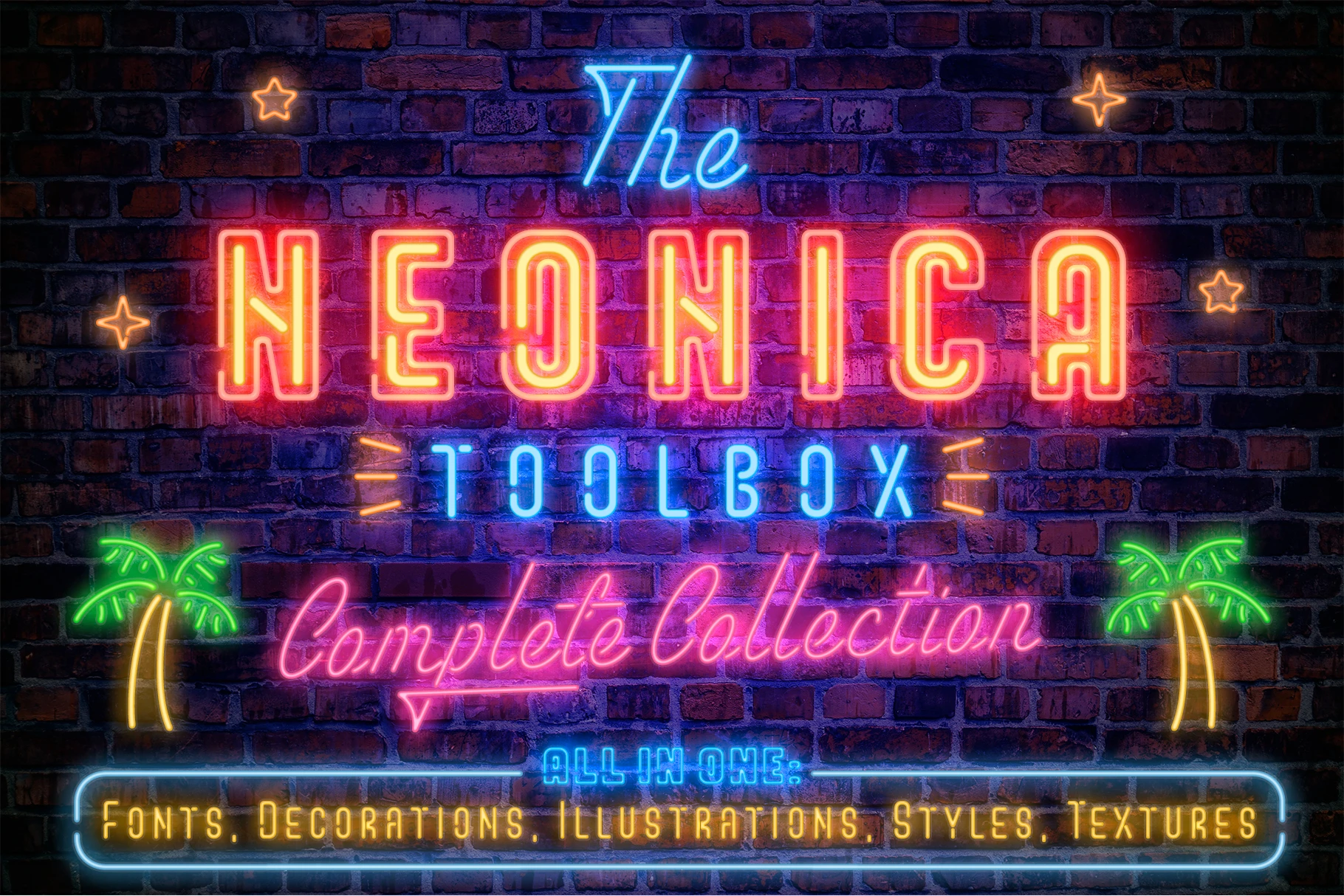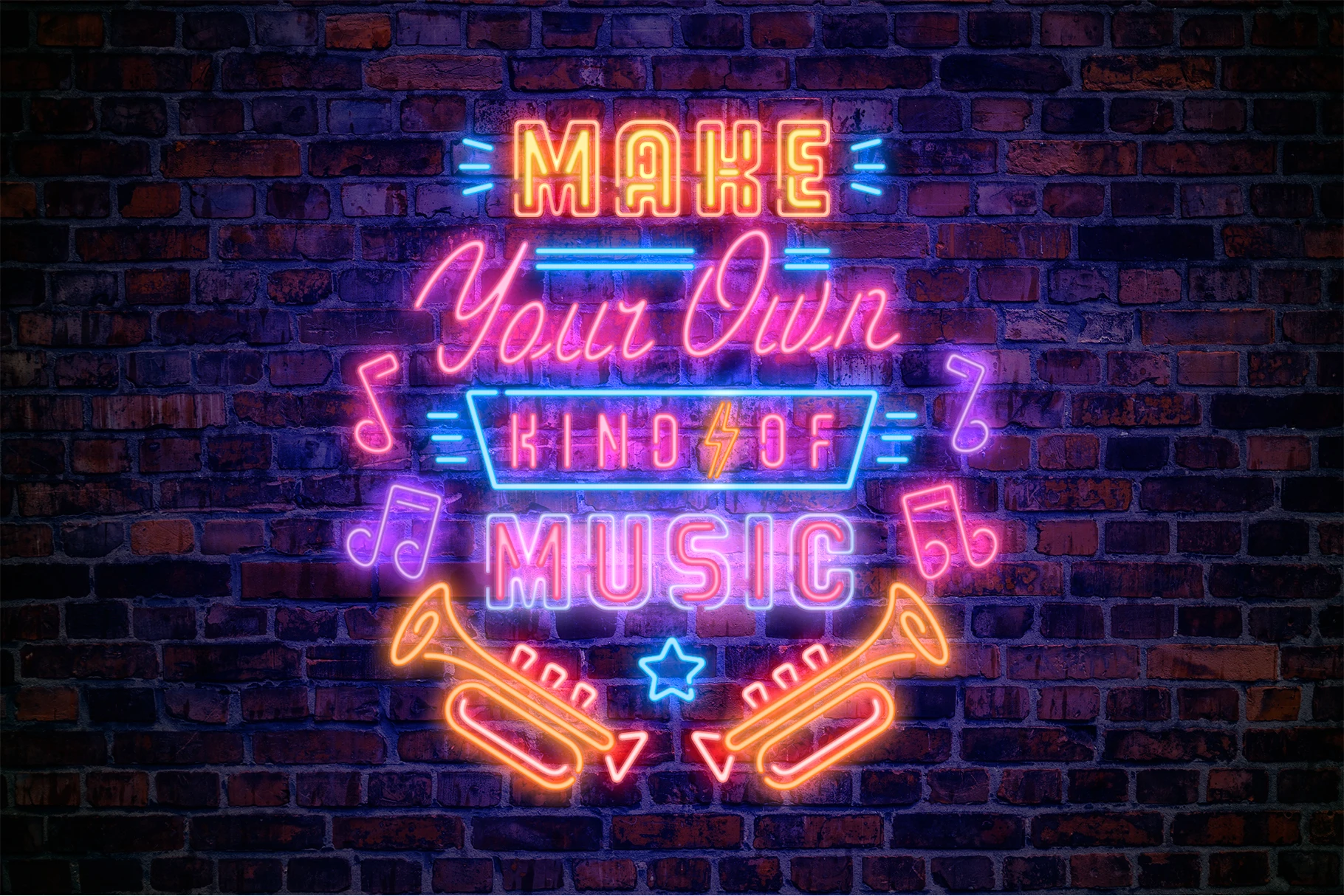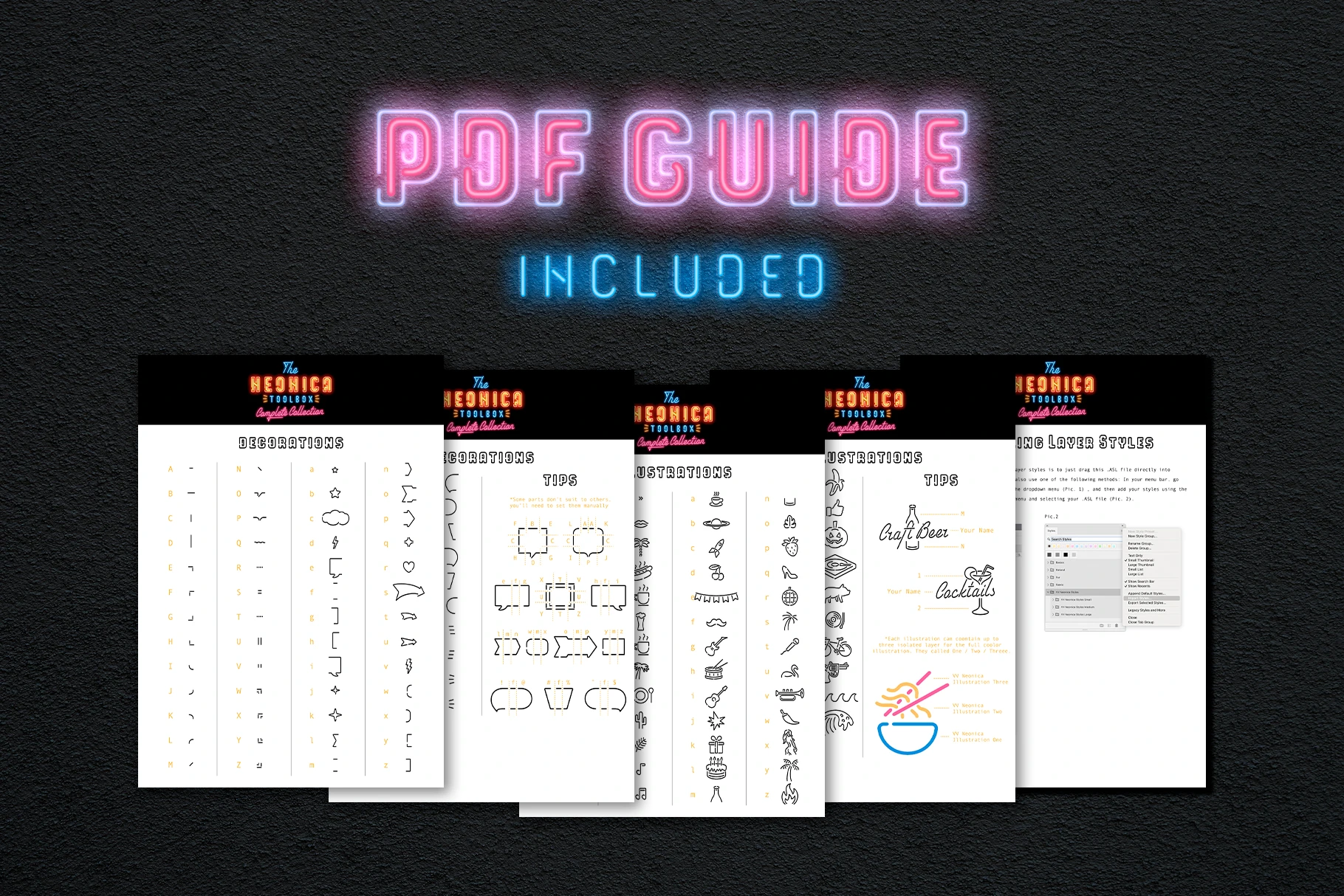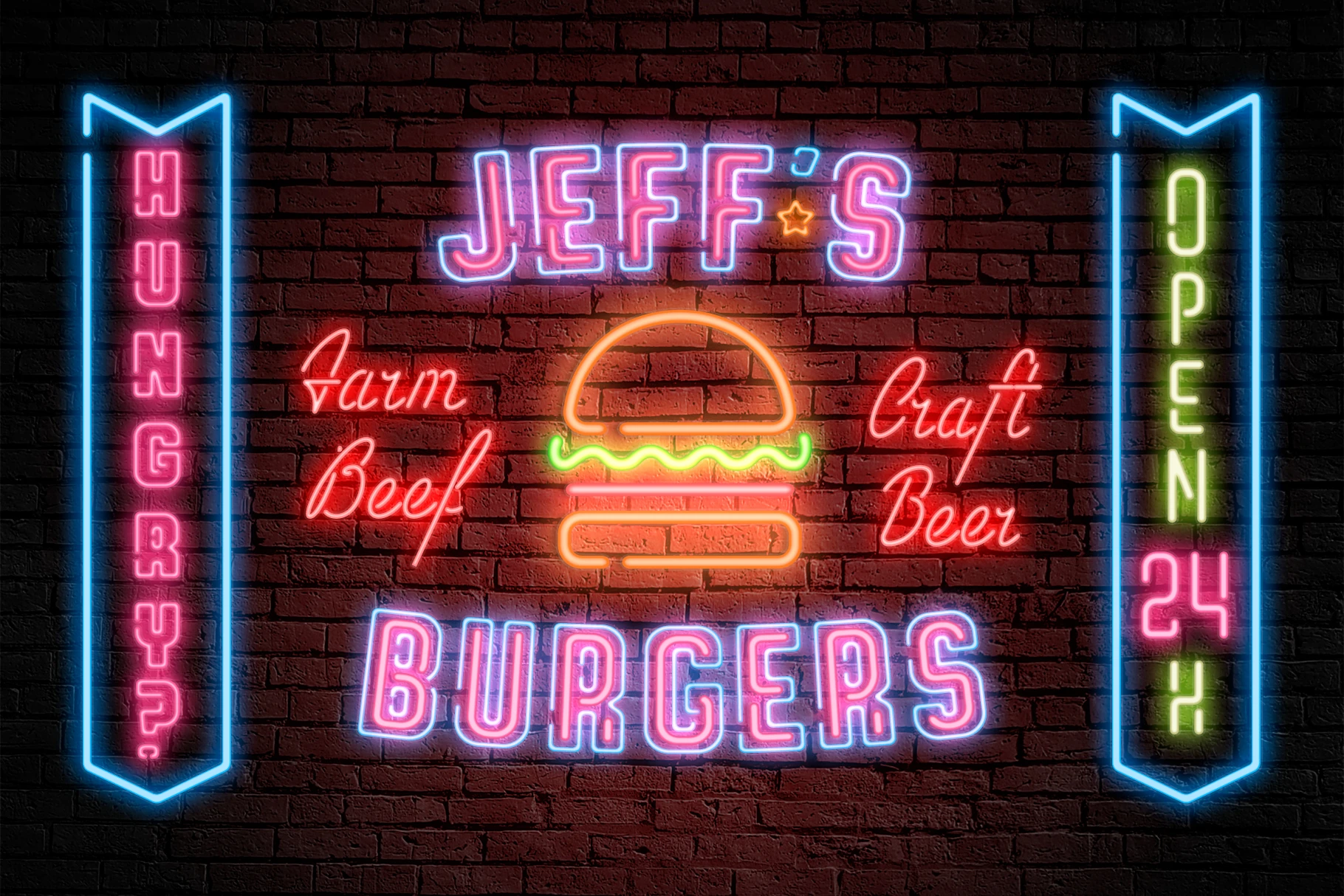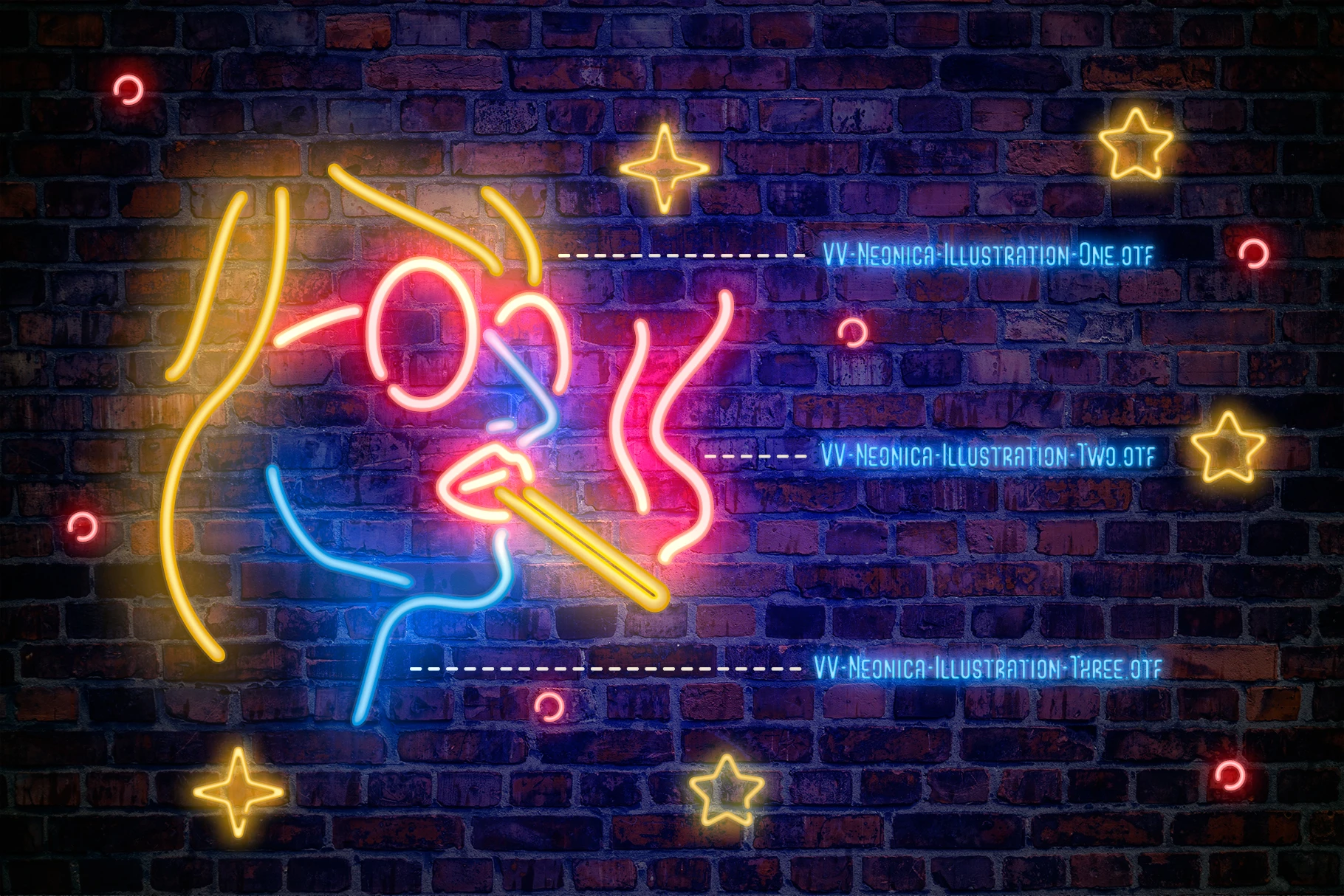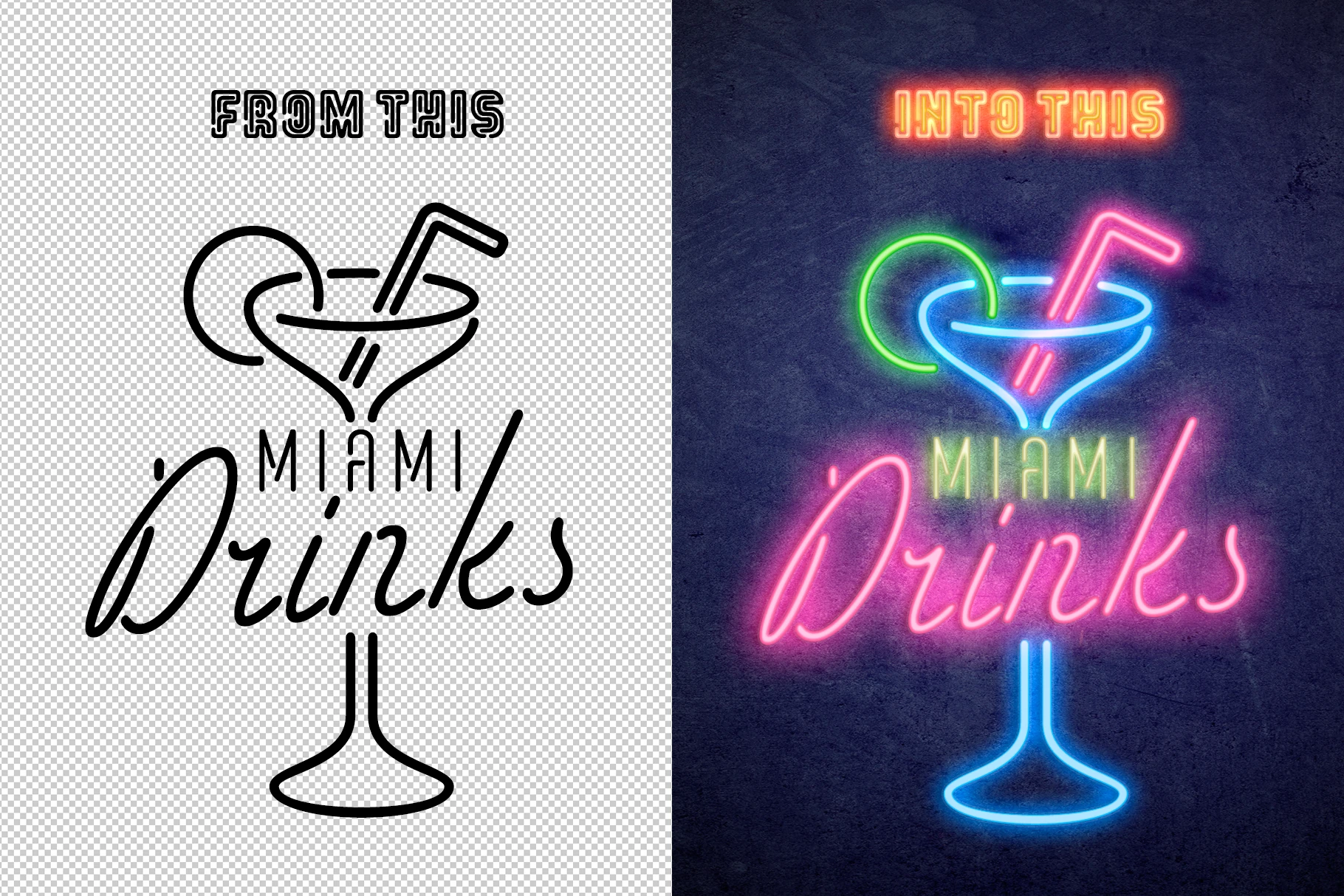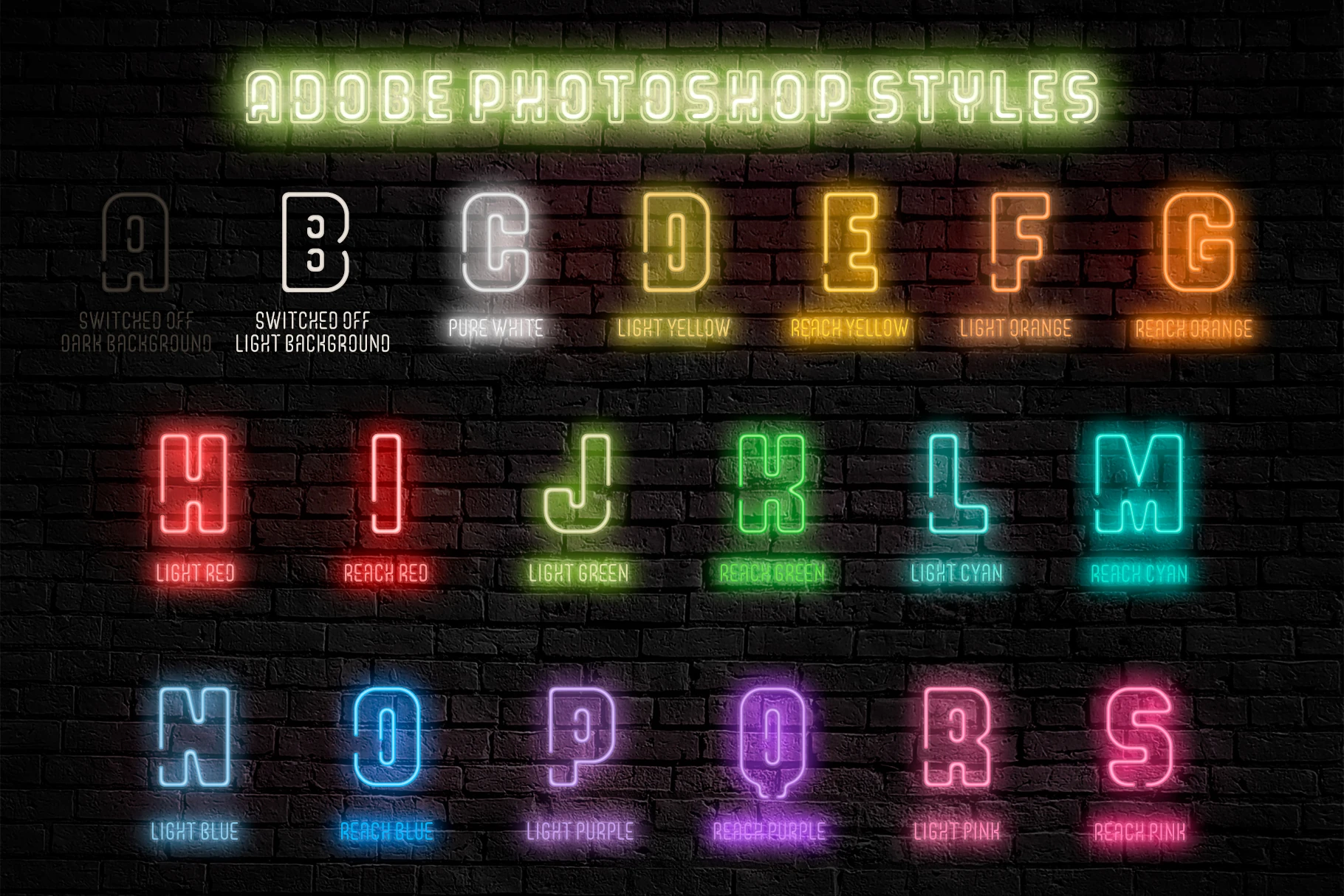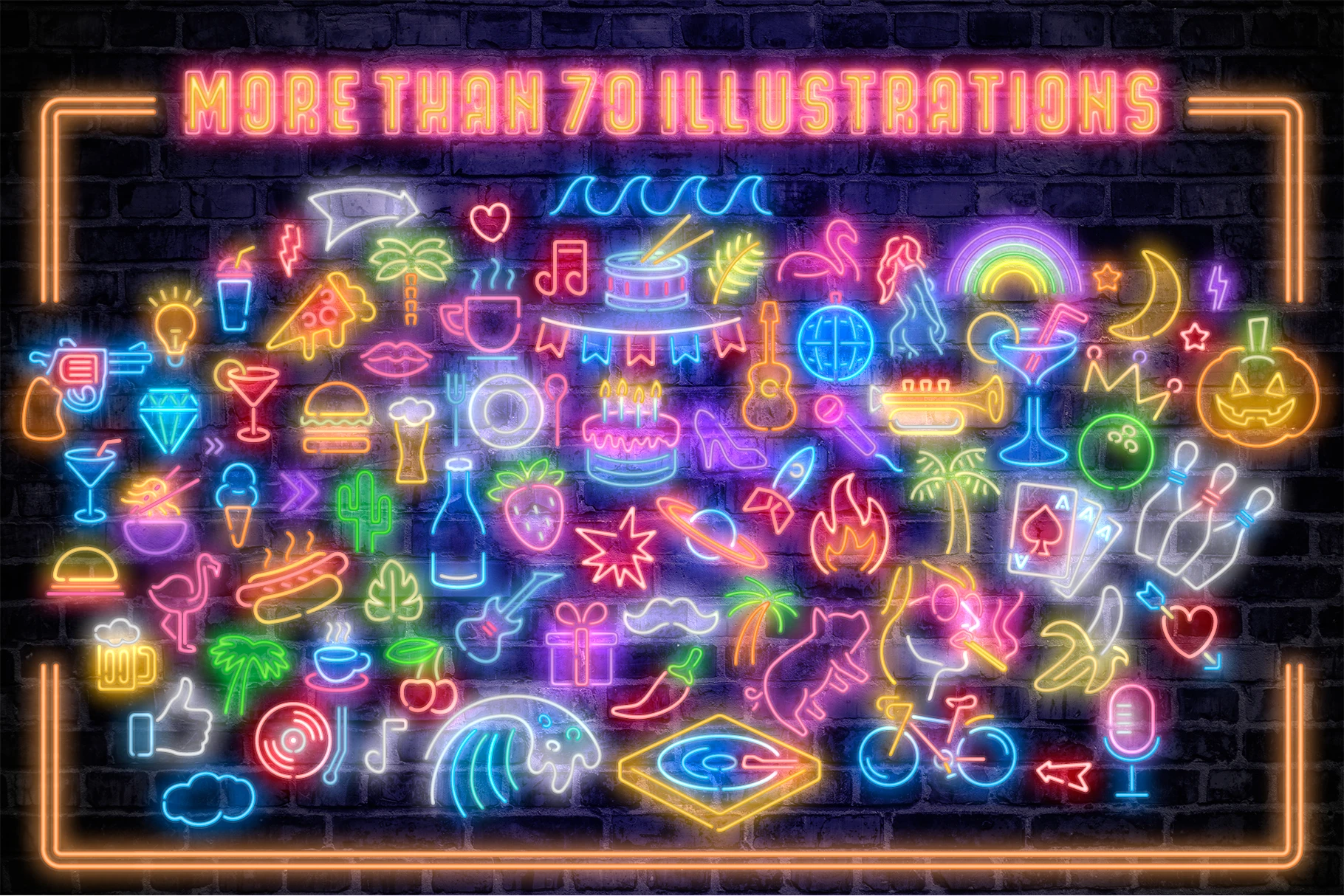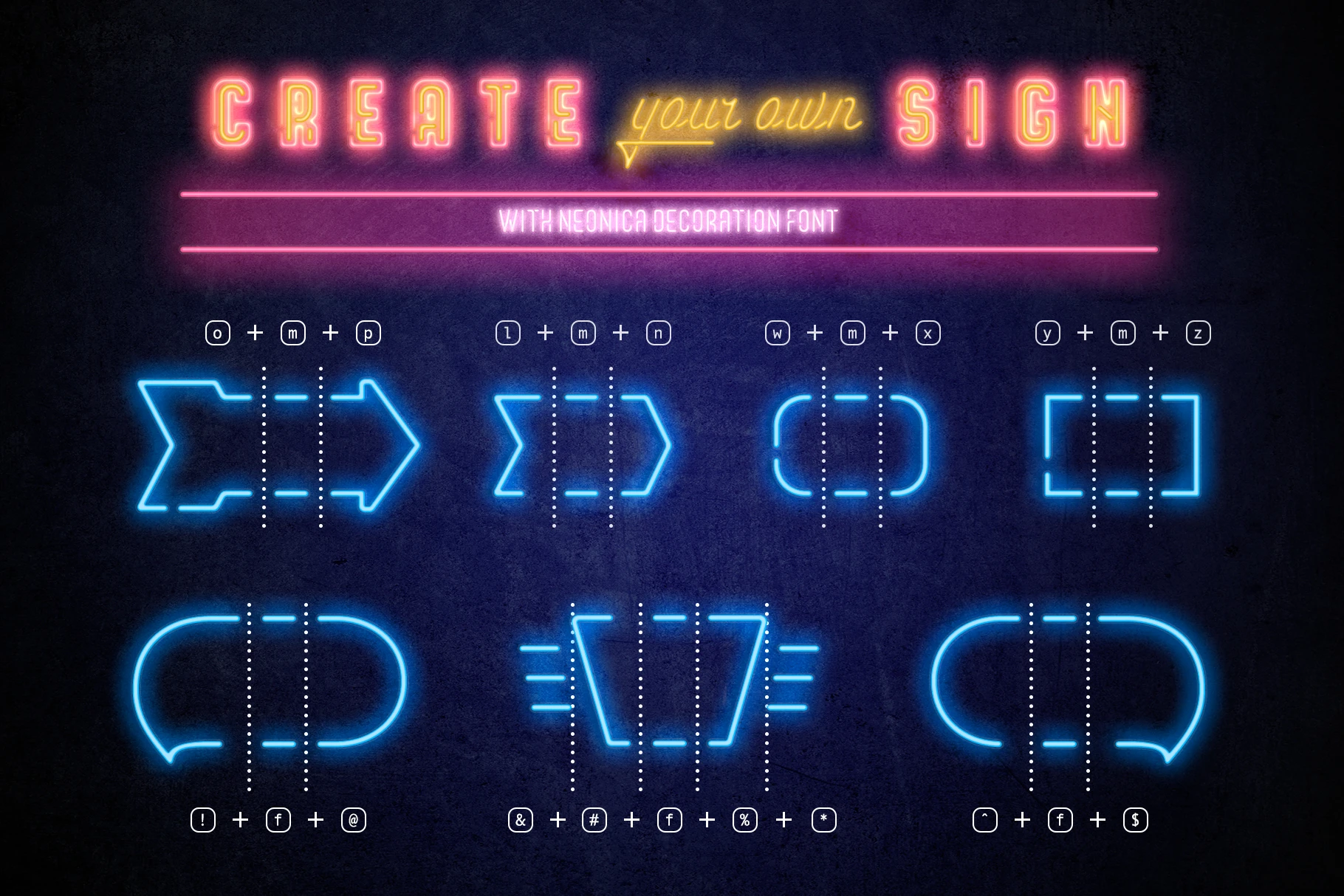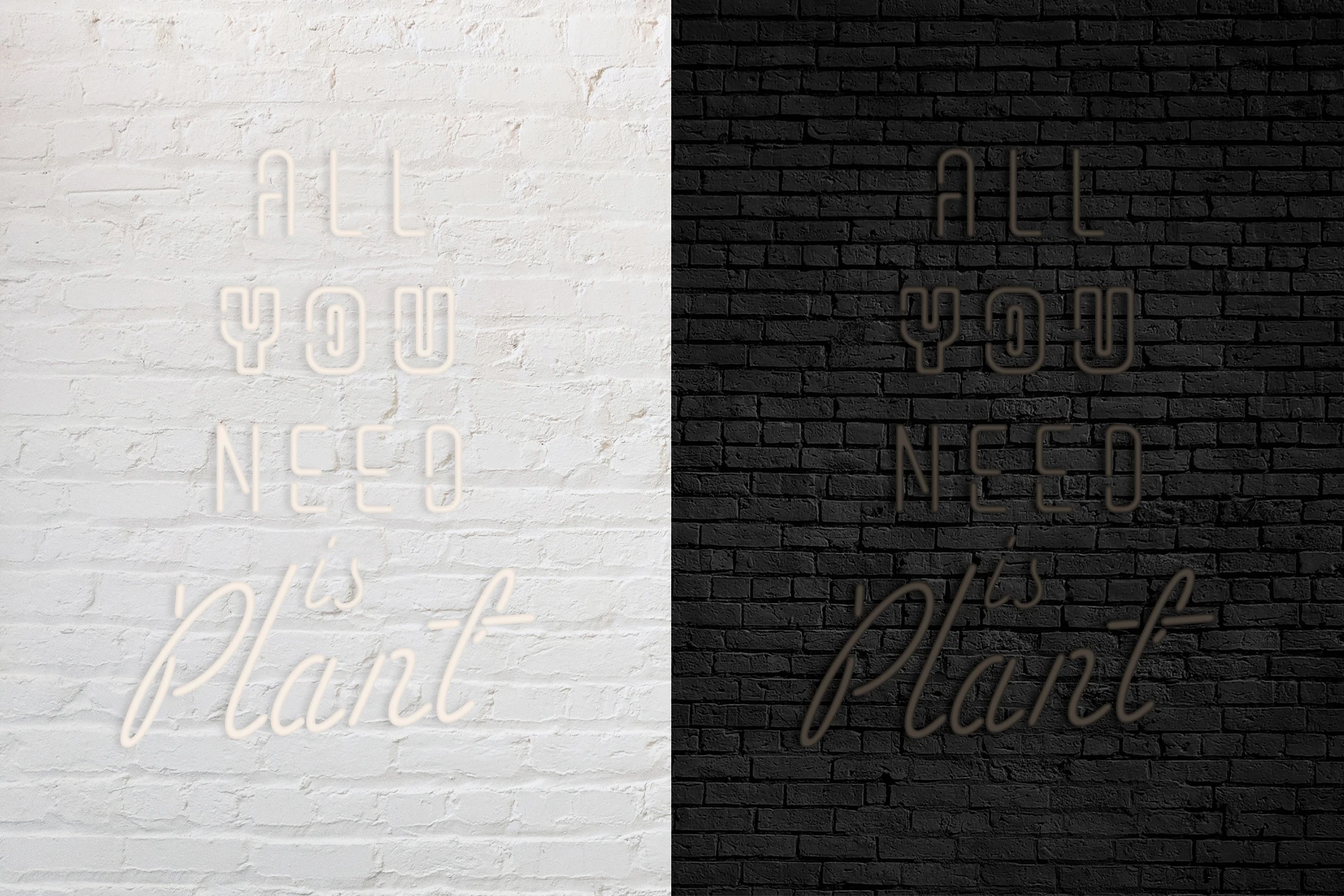
Neonica Toolbox Font Family
Neonica Toolbox is a complete creative kit designed for building eye-catching neon-style graphics. It includes a monoline sans, a volumetric sans with an inline option, and a monoline script — perfect for creating custom neon sign typography. The set also features decorative and illustration fonts, allowing for quick, colorful accents and full neon-style compositions. The illustration font supports up to three color layers, making it easy to create vivid neon effects in seconds. Ideal for posters, social media graphics, signage, and any project needing a bold, glowing look with retro flair.